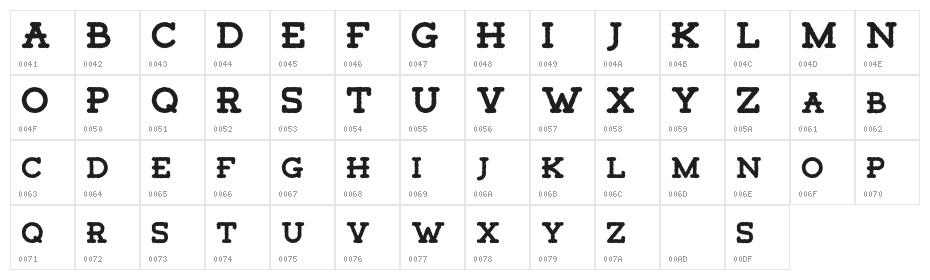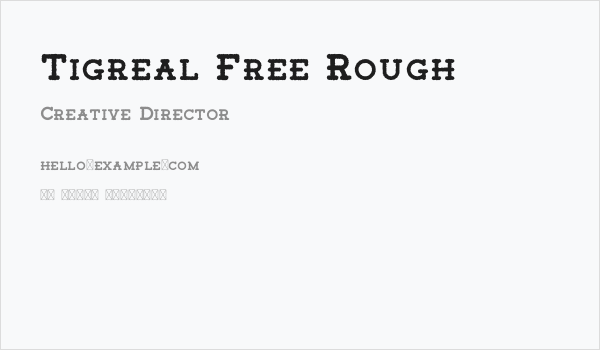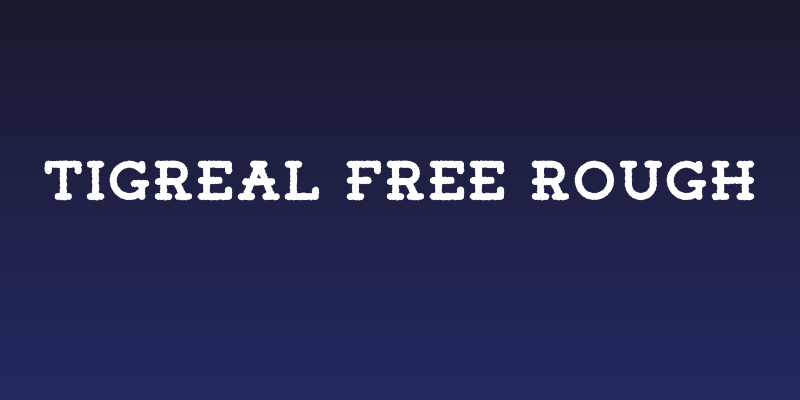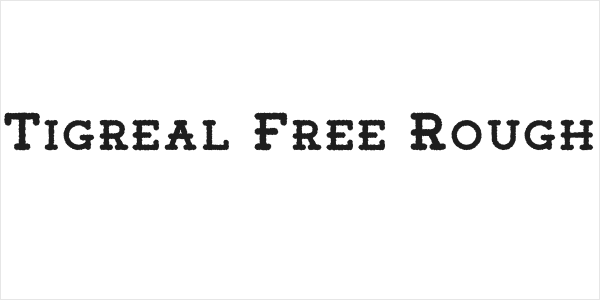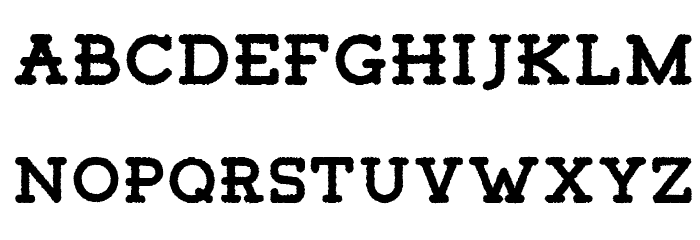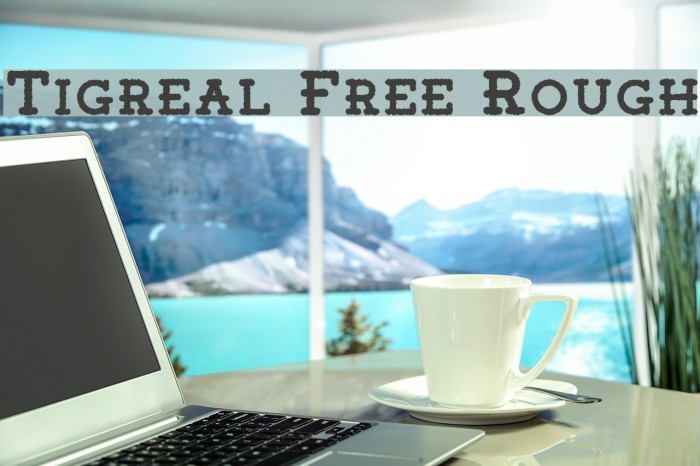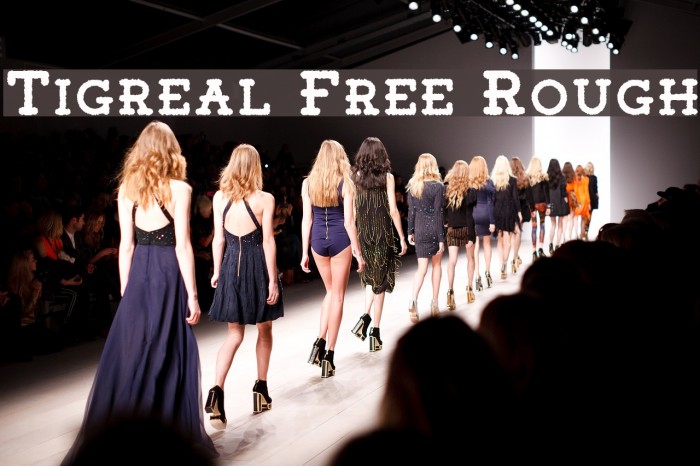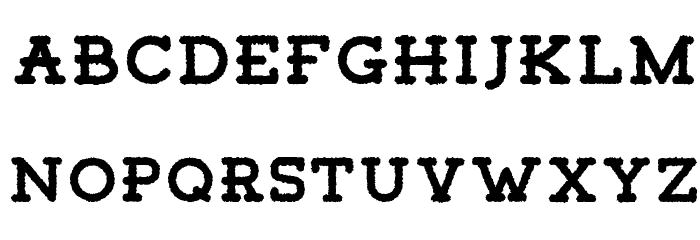
Tigreal Free Rough Font
Tigreal Free Rough Description
This font features a rugged, textured appearance that gives it a handcrafted, vintage feel. The letters are bold and slightly condensed, with a rough, distressed edge that adds character and depth. The uppercase letters are uniform in height, maintaining a consistent baseline, while the lowercase letters follow a similar pattern. The numbers and special characters are designed to match the overall aesthetic, providing a cohesive look across all glyphs. This font's unique style makes it ideal for projects that require a touch of nostalgia or a handcrafted vibe.
| Proposed Projects | Ideal for vintage-themed posters, logos, branding, and packaging design. |